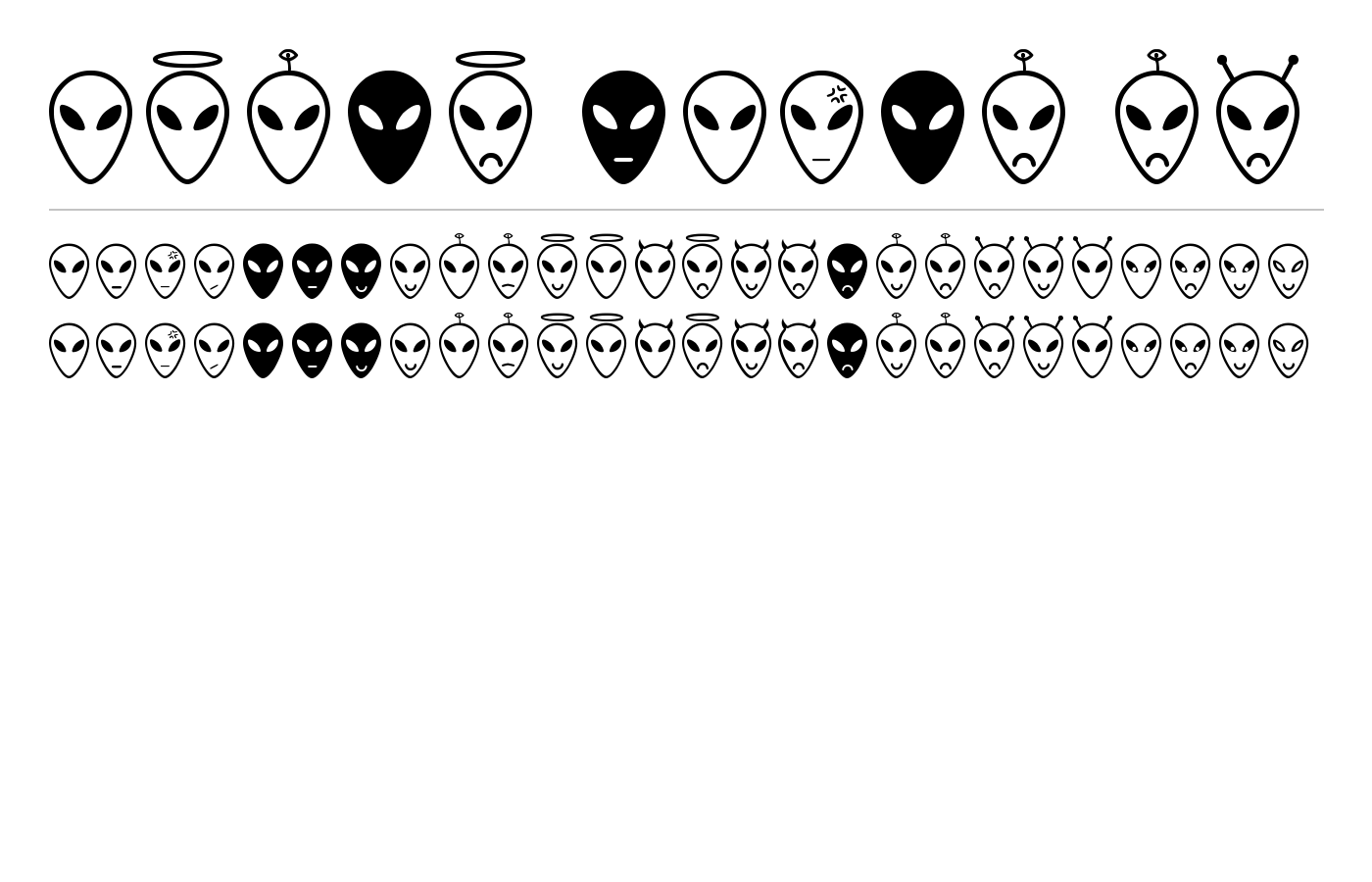
Alien Faces St Font is a fun and quirky symbol font featuring a variety of alien head icons with simple, bold shapes and minimal details. Its playful and futuristic style is perfect for sci-fi themed projects, stickers, or creative designs needing a touch of extraterrestrial charm and character. This font works best for eye-catching headlines, logos, or graphic decorations rather than body text.
Alien faces St Font
About Alien faces St Font